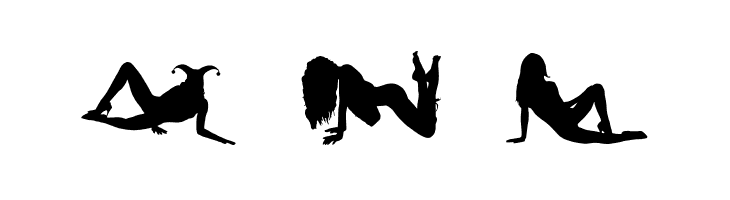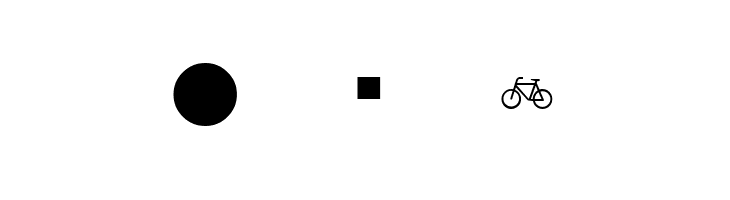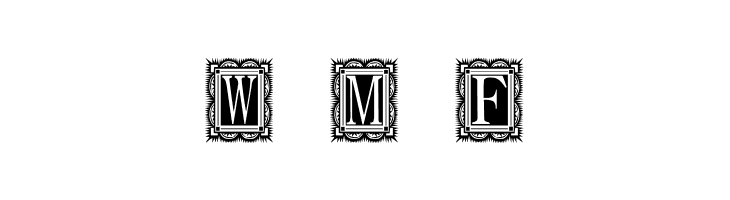
A playful, collage-style font with eclectic, cut-out letter designs.
Ornate, decorative initials with intricate floral and cherubic designs.
A decorative font with bold letters encased in intricate circular frames.
A playful font with angel bear illustrations integrated into each character.
A playful, decorative font featuring cartoon rabbits integrated into each character.
A decorative font with characters formed by silhouettes of people, symbolizing unity.
A decorative and abstract font with geometric and futuristic elements.
A playful, hand-drawn font with whimsical, child-like illustrations.
A modern, geometric set of directional arrow symbols in circles and squares.
A comprehensive set of universally recognizable public signage symbols.
A playful and whimsical script font with elegant loops and curls.
A bold, cursive brush script font with dynamic and fluid strokes.
Silhouette-based font featuring photographers in action.
A modern, playful font with rounded edges and dynamic curves.
A bold, rounded, and italic font with a playful and dynamic style.